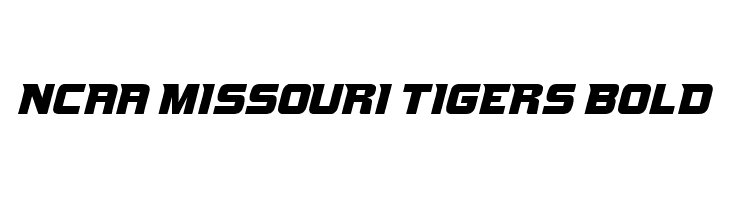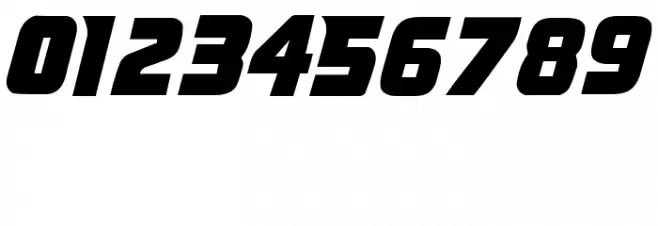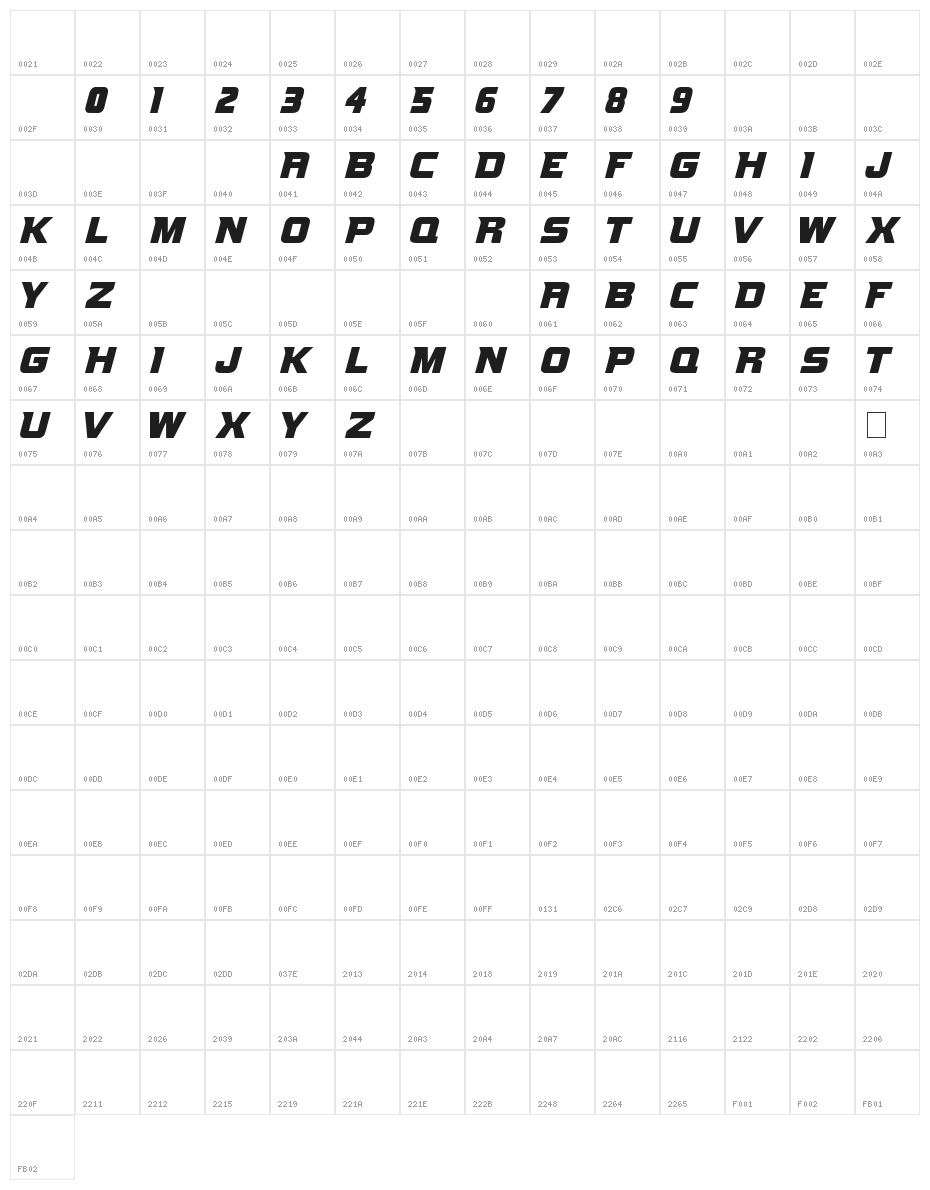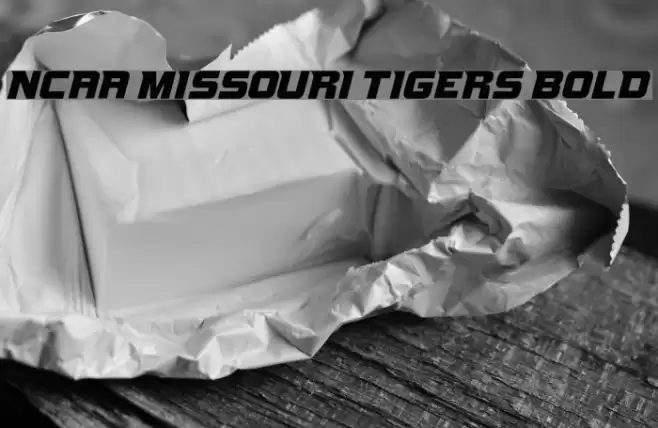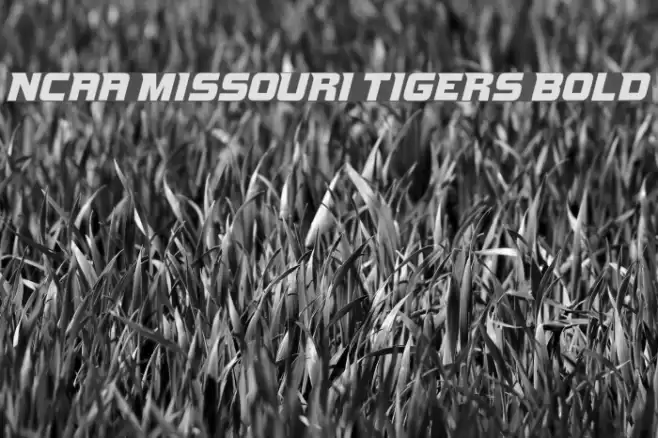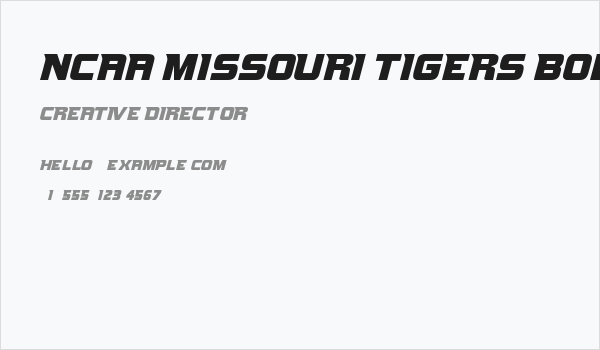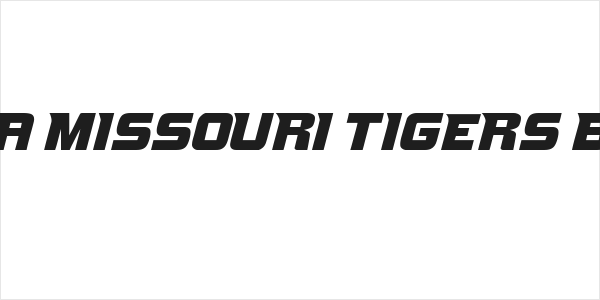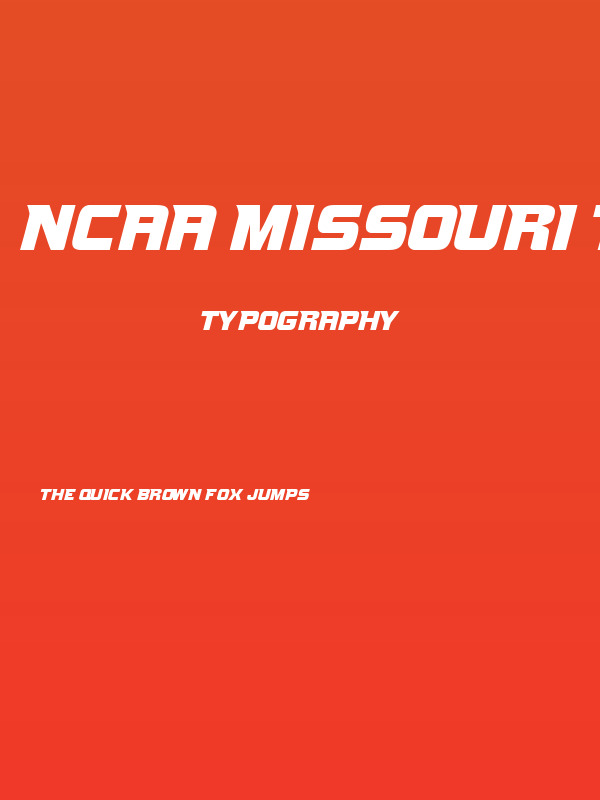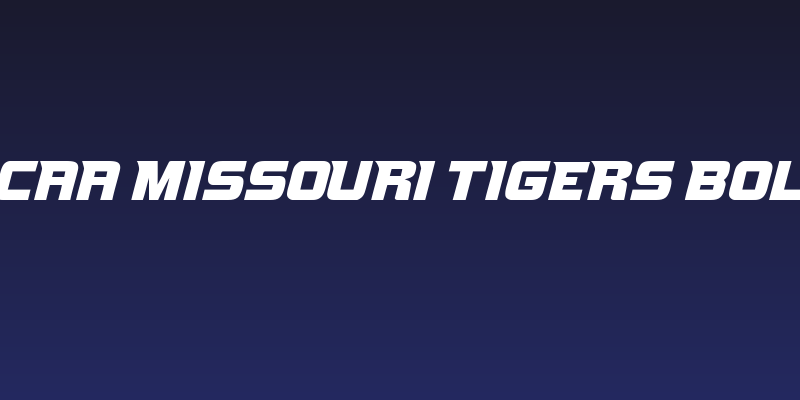
NCAA Missouri Tigers Bold Font
NCAA Missouri Tigers Bold Description
This font features bold, angular characters with a strong, athletic presence. The uppercase letters are designed with a slight slant, giving a sense of motion and energy. The numbers are equally bold, maintaining the dynamic style throughout. The font's thick strokes and sharp edges contribute to its commanding appearance, making it ideal for sports-related themes. Its uniformity and consistency across characters ensure readability while maintaining a distinctive style.
| Use Case | Logos, Headlines |
| Proposed Projects | Ideal for sports branding, team logos, merchandise, and event posters. |